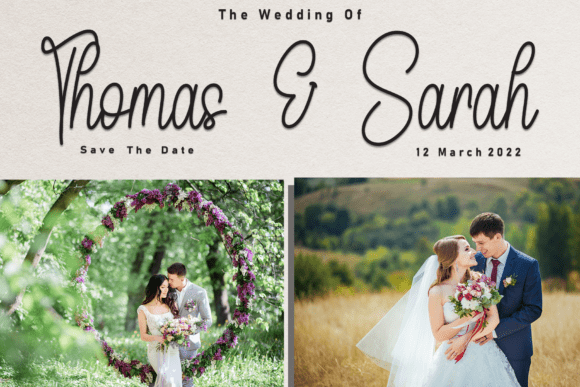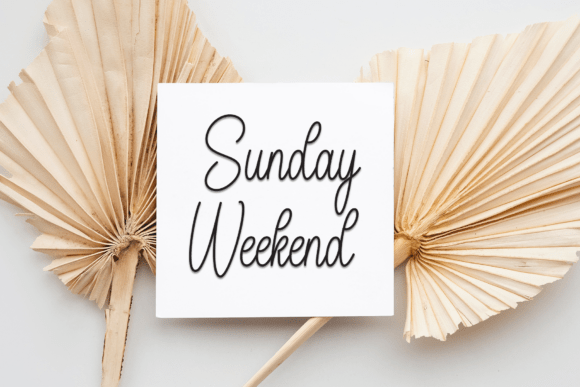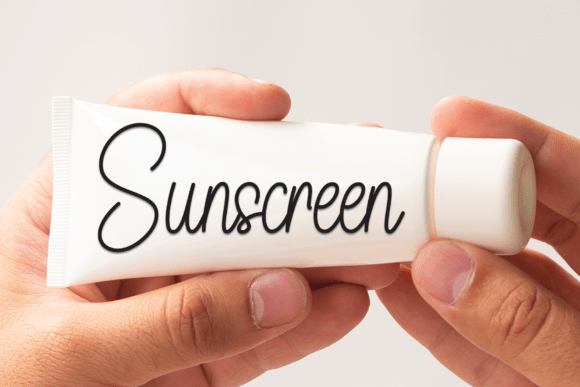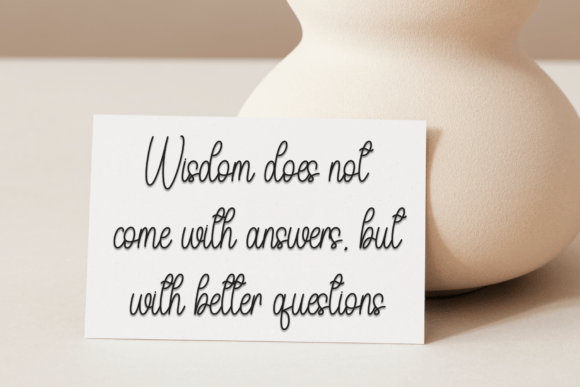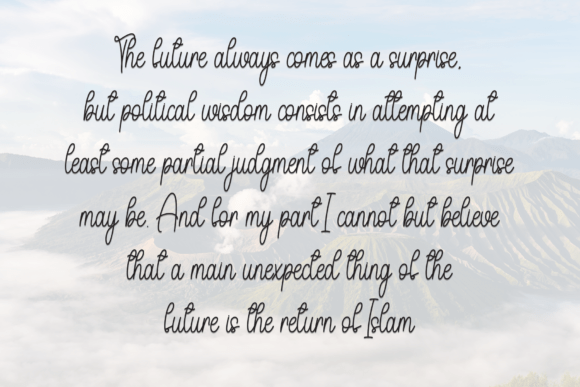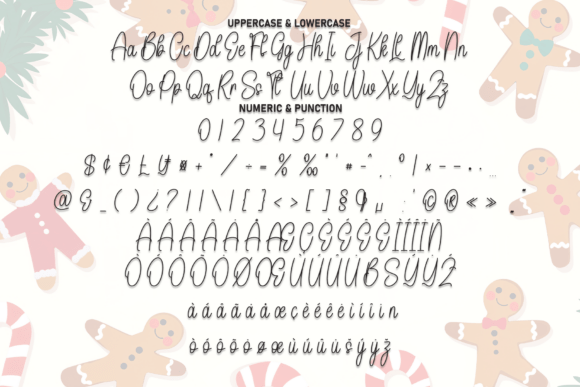
Unwrapping the Magic of Gingerbread Font
Ah, the elusive perfect font – we’ve all been there, right? I recall working on a wedding invitation project, scrolling through pages of fonts, but nothing seemed quite right. That was until I stumbled upon the enchanting Gingerbread Font. Its whimsical, handwritten charm instantly captured my heart, and I knew I had found the one. In this article, I’ll share my journey with this captivating font, its features, and how you can make the most of it in your designs.
A Personal Review: What I Love and What to Consider
- ✨ Unique, friendly, and approachable handwritten style
- ✅ Seamlessly enhances wedding invites, greeting cards, and various designs with a luxurious hue of cuteness
- ✅ Brimming with a delightful aura, imparting an infectious sense of joy into your designs with a playful appeal
- ✅ Perfect for creative projects that seek a sprinkle of pleasure and charm
- ⚠️ Limited use in formal or professional designs, as it may come across as too playful
- ⚠️ May require adjustments for optimal readability in smaller font sizes
- Experiment with OpenType features, such as stylistic alternates, to add more personality to your text.
The Story Behind Gingerbread Font
Gingerbread Font was designed with the intention of capturing the essence of warmth and friendliness. Inspired by traditional handwritten scripts, the font’s creator aimed to craft a unique and approachable typeface that would add a touch of personality to any design. With its intricate details and playful charm, Gingerbread Font has become a popular choice among designers and crafters.
Q: What type of designs is Gingerbread Font best suited for?
A: Gingerbread Font is perfect for designs that require a touch of whimsy, playfulness, and charm, such as wedding invites, greeting cards, and various creative projects.